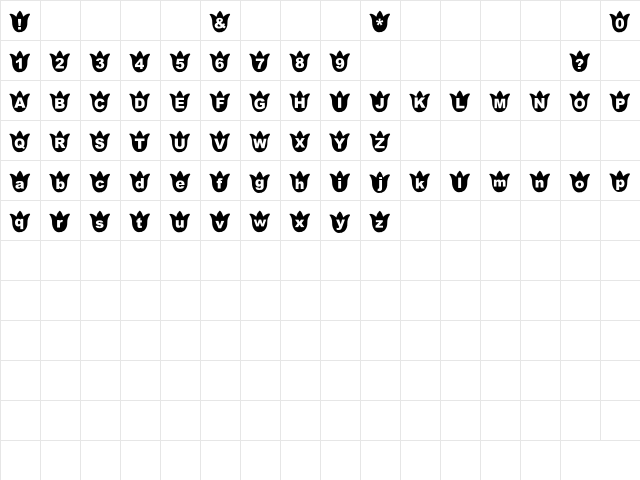
Michotulip Regular
Design Context for Michotulip Typeface
Michotulip is a composed and adaptable typeface that performs quietly and consistently across a wide range of design contexts.